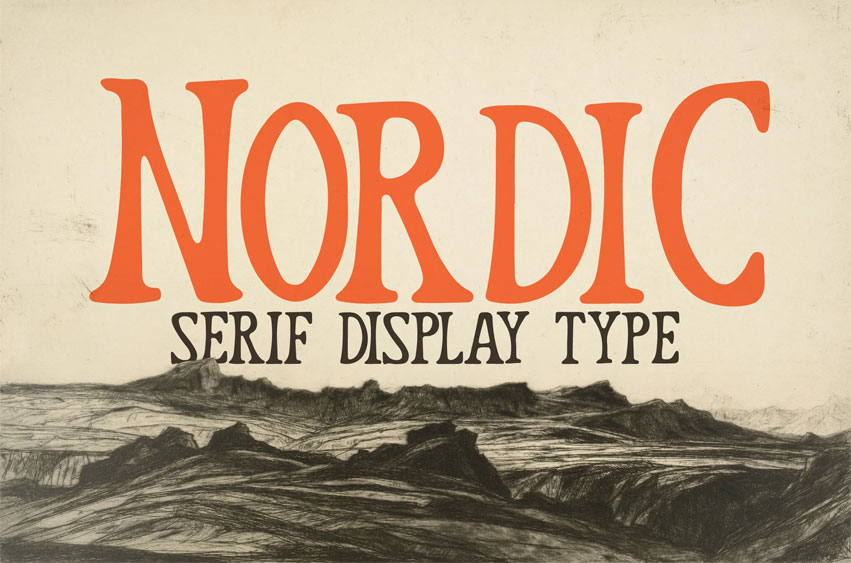
Nordic Font
Nordic Font, which has a Bold design and looks like a print. The font looks like a serif, but the lines are irregular, so it looks more natural. Suitable for use in various media, book covers, posters, typography, promotions, and other digital media.